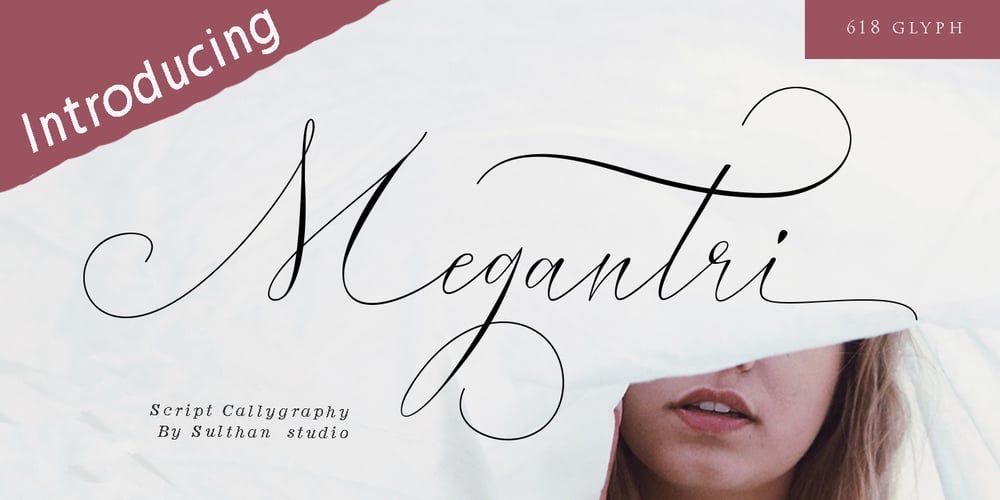
Megantri Font Family was designed by Nasrullah and published by Sulthan Studio. Megantri contains 1 styles and family package options. my handwriting, I wrote it with a feeling of being happy … and feeling loving.Bungalow was built with OpenType features and includes beginning and ending swashes, numbers, punctuation, alternates, ligatures and it also supports other languages :)swashes are called alternative glyphs.For example, letter “z” with beginning and ending swashes are alternative glyphs for “z”. To access the all alternatives you want, just open Glyphs panel. Please use alternative glyph for selected letter, after which don’t put spacing. Alternatives Glyphs can be auto matching on Adobe CC